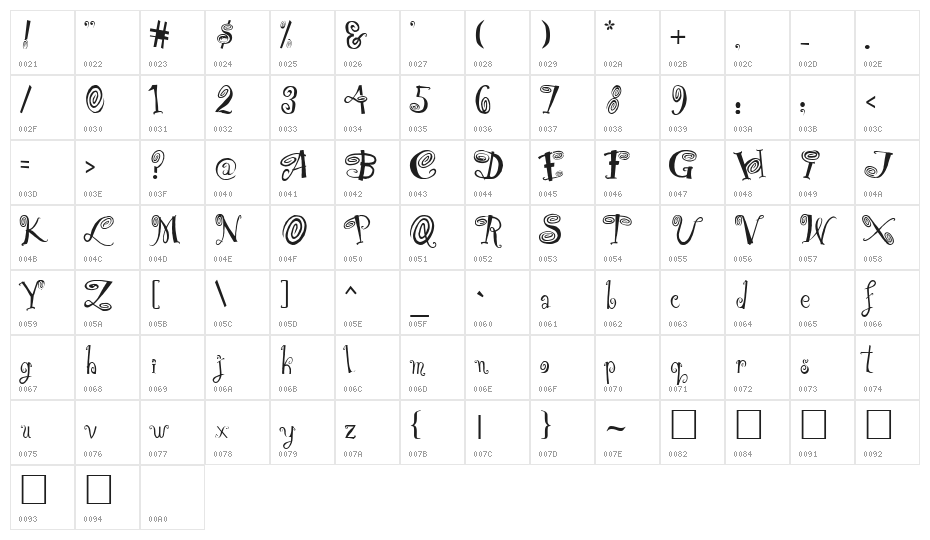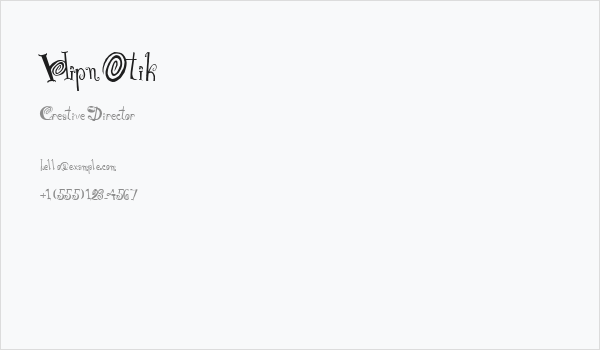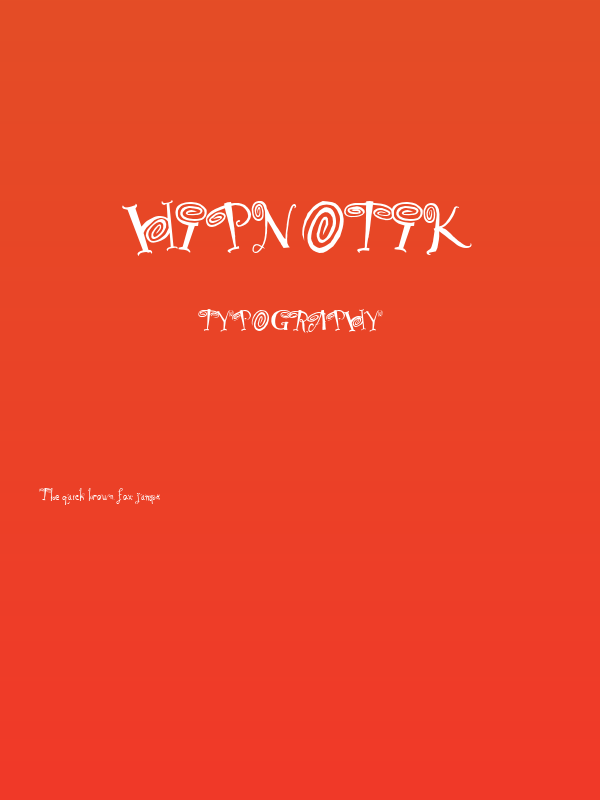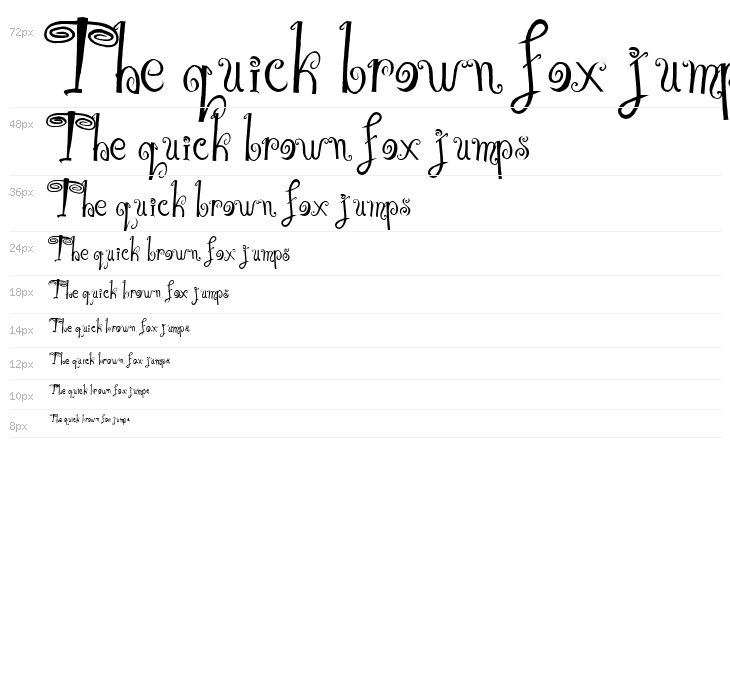
HipnOtik Font
HipnOtik Description
This font features a whimsical and playful design, characterized by its swirling and spiral elements integrated into each character. The uppercase letters exhibit a bold and decorative style, with intricate curls and loops that give a sense of movement and energy. The lowercase letters maintain this playful aesthetic, with unique twists and turns that make each character distinct. Numbers and special characters follow the same decorative theme, ensuring a cohesive look across all glyphs. This font's artistic flair makes it stand out, perfect for projects that require a touch of creativity and fun.
| Proposed Projects | Ideal for children's book covers, playful branding, party invitations, and creative posters. |